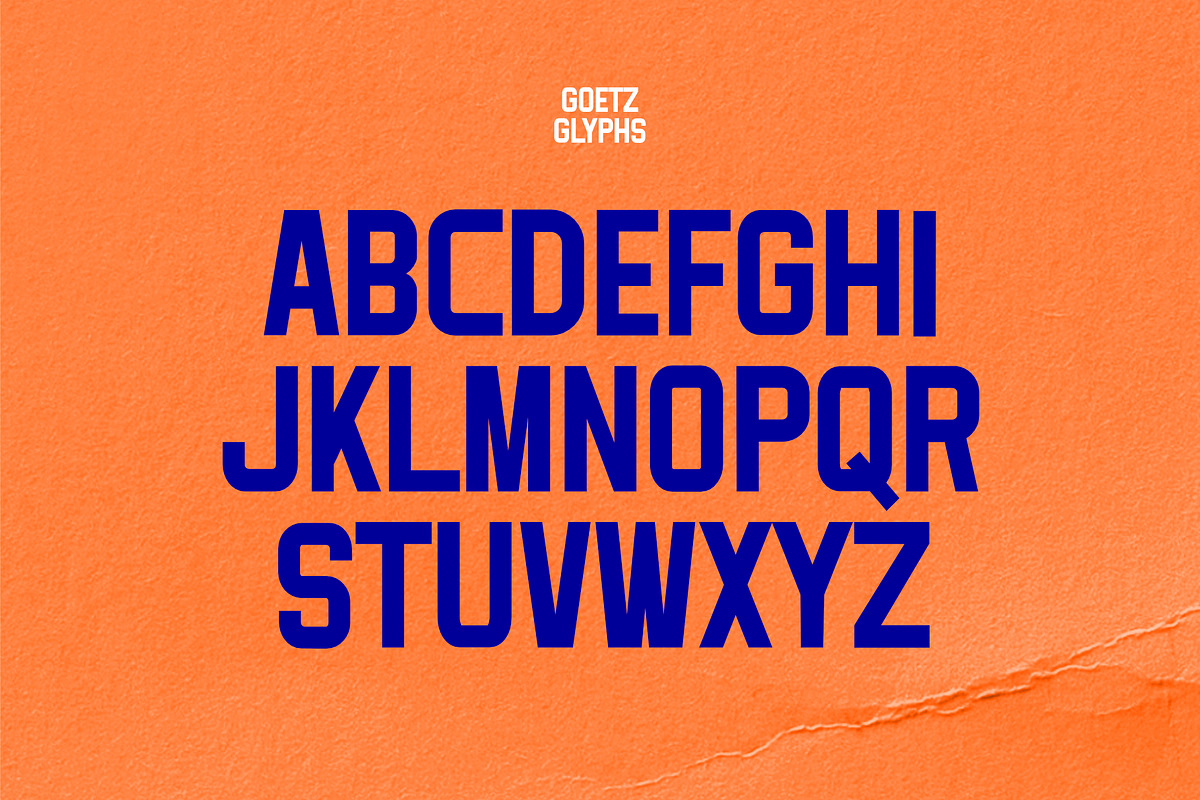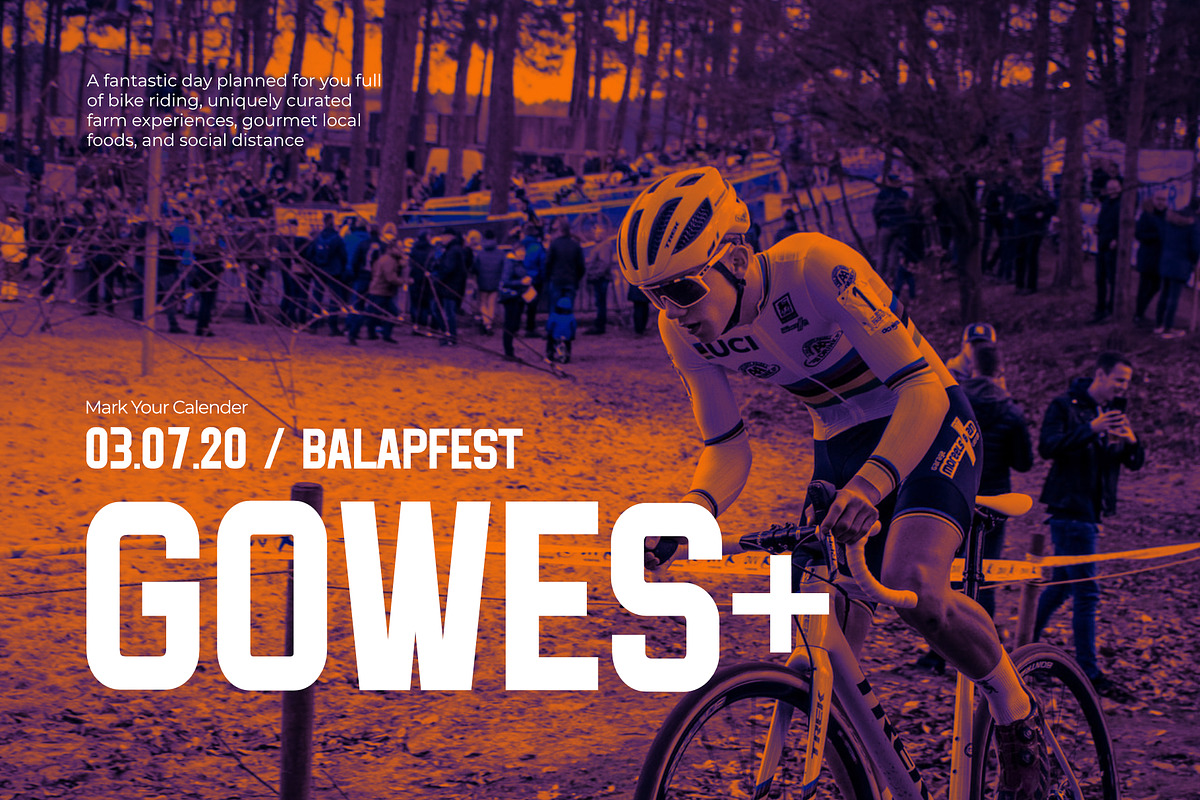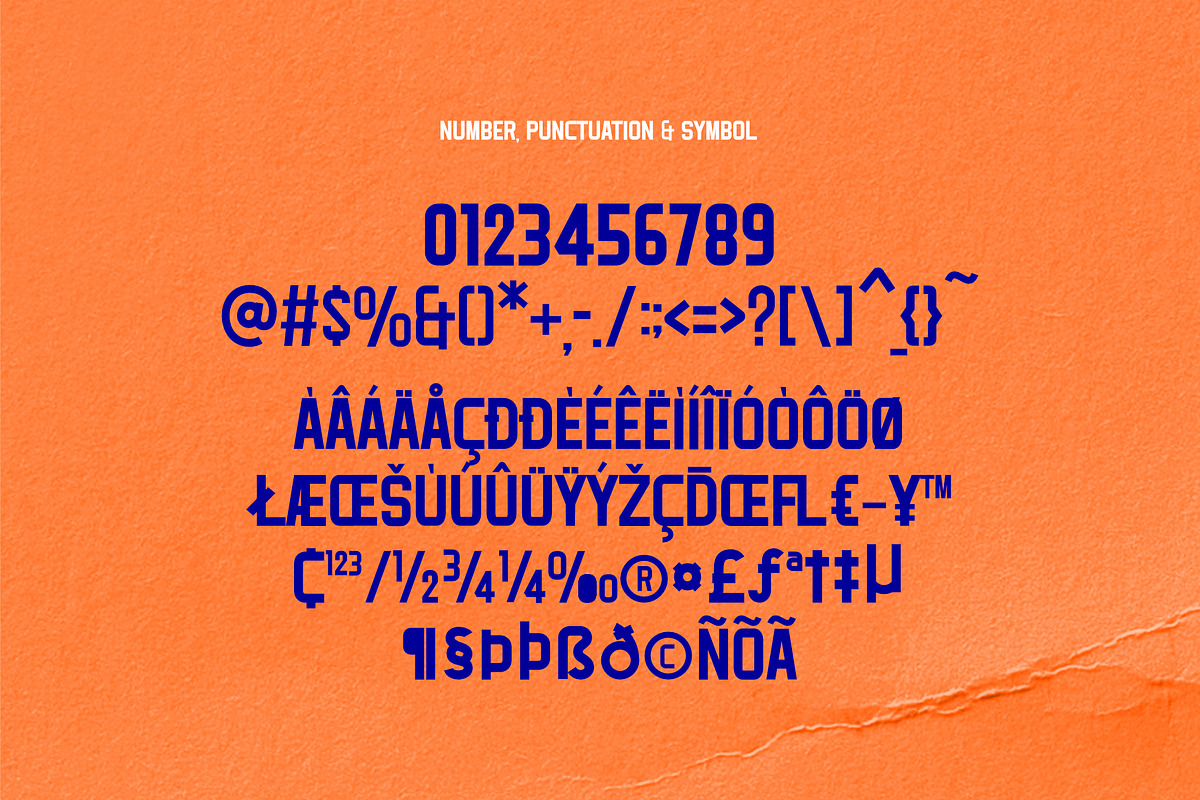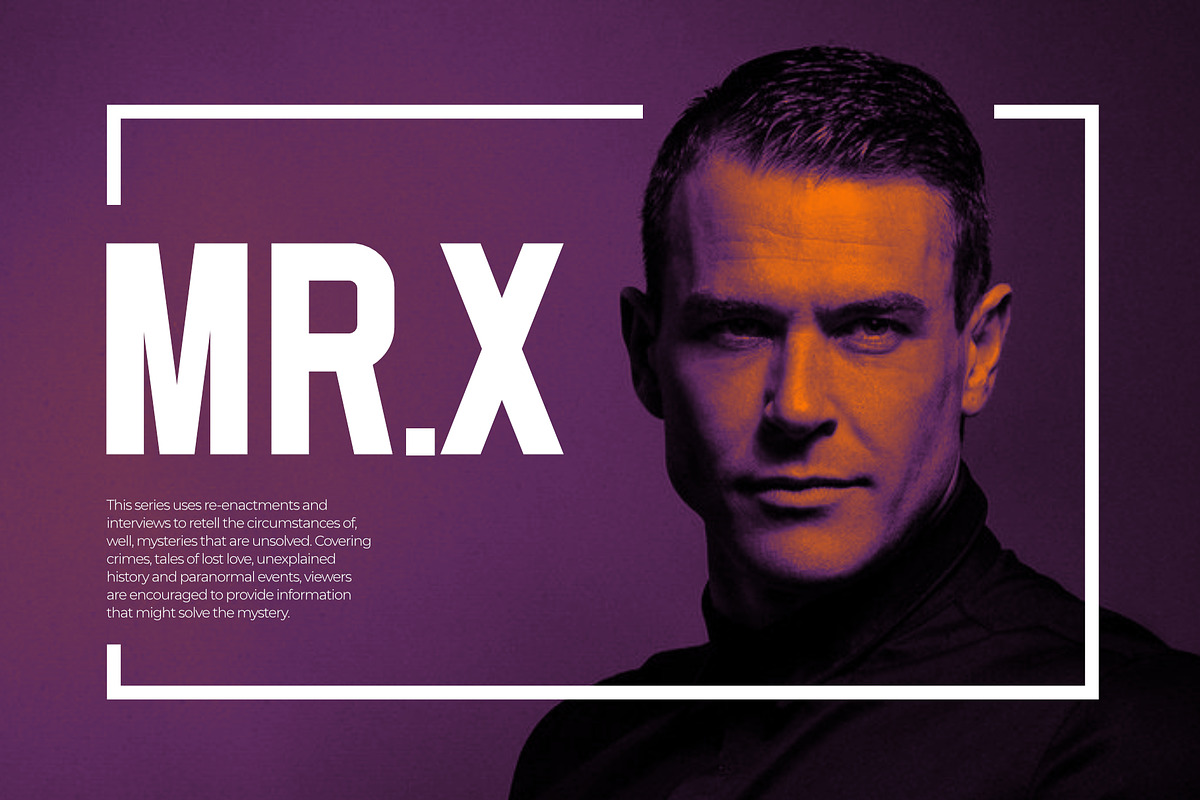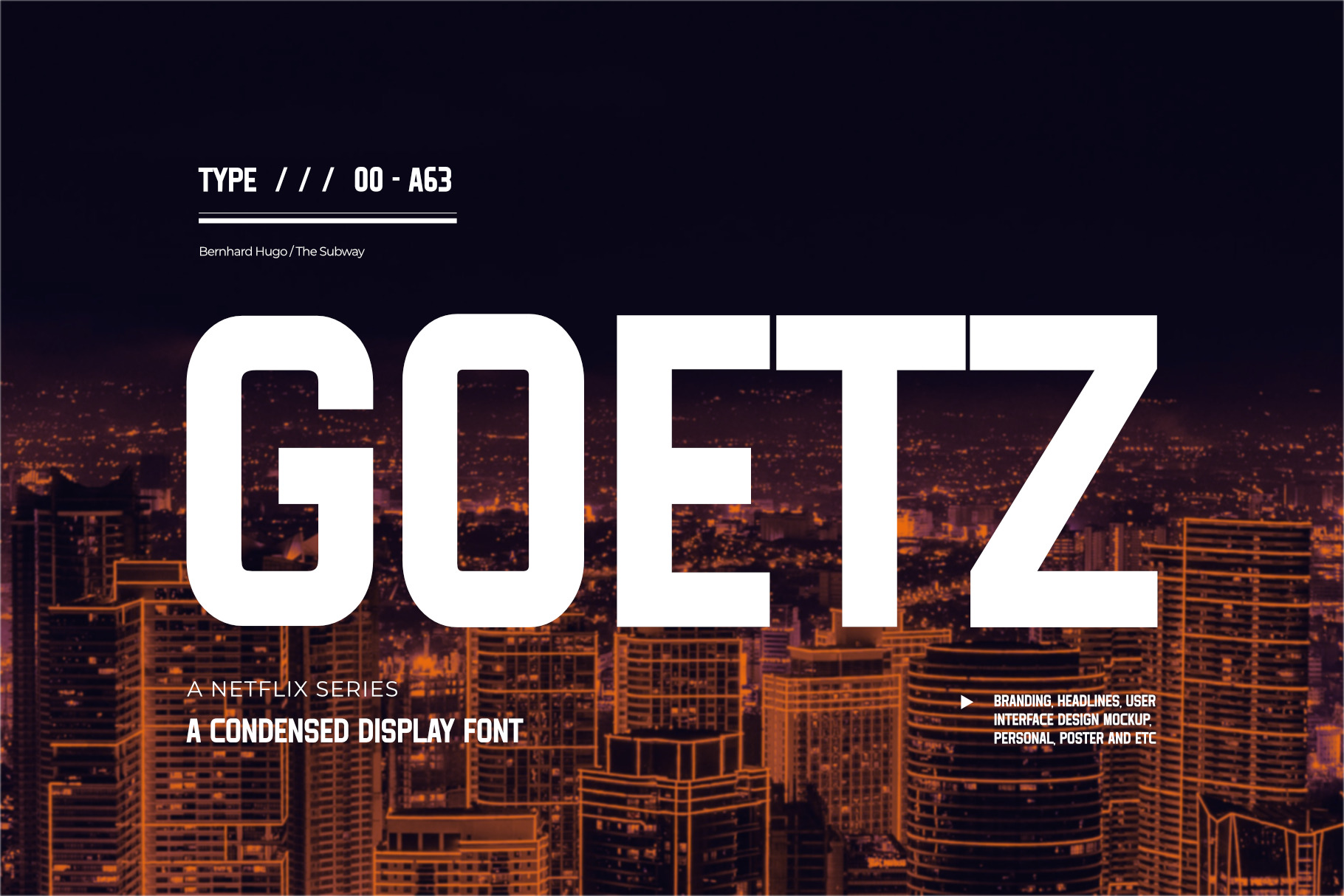
Goetz - All Caps Display Font
is a soft, bold and unique grid-based typeface which was created to make webpages, paper and identities cosy and welcoming. This typeface is a bold and unique modern display font. This all-caps condensed font is perfectly suited for use in tech, industrial & sport themes. Use it for logos & branding, headlines, posters, advertising, marketing and much more.